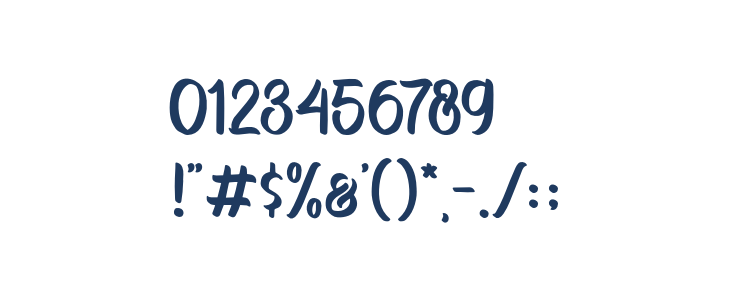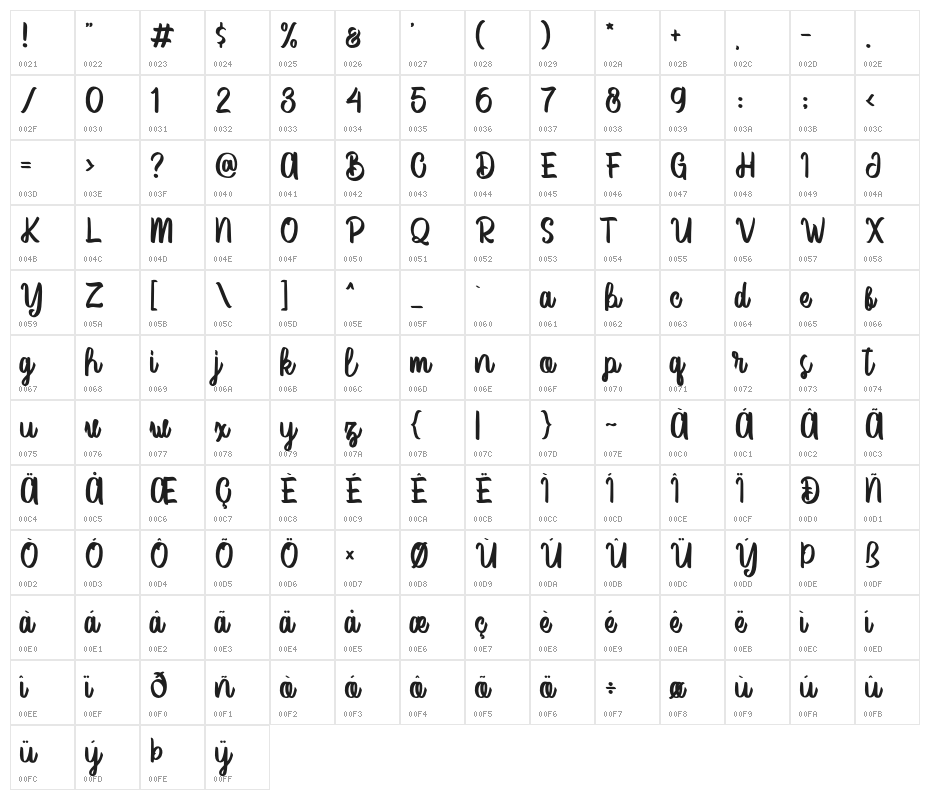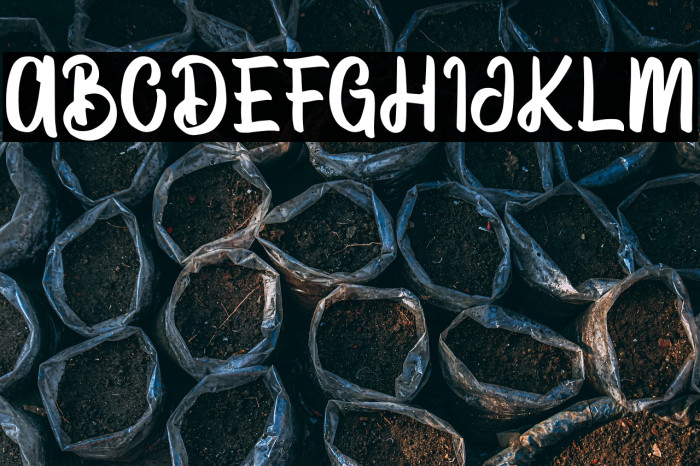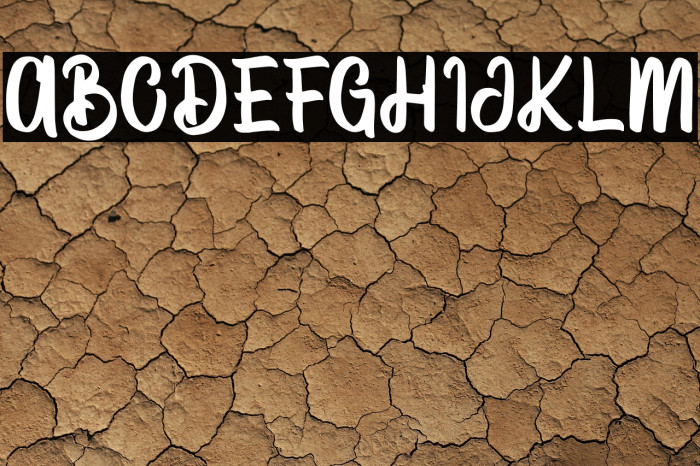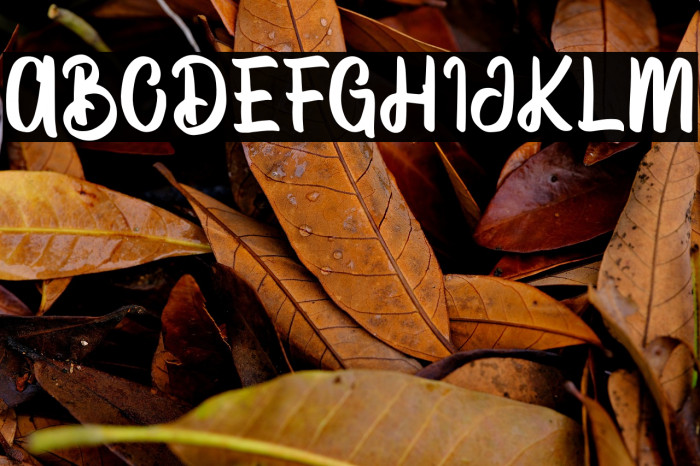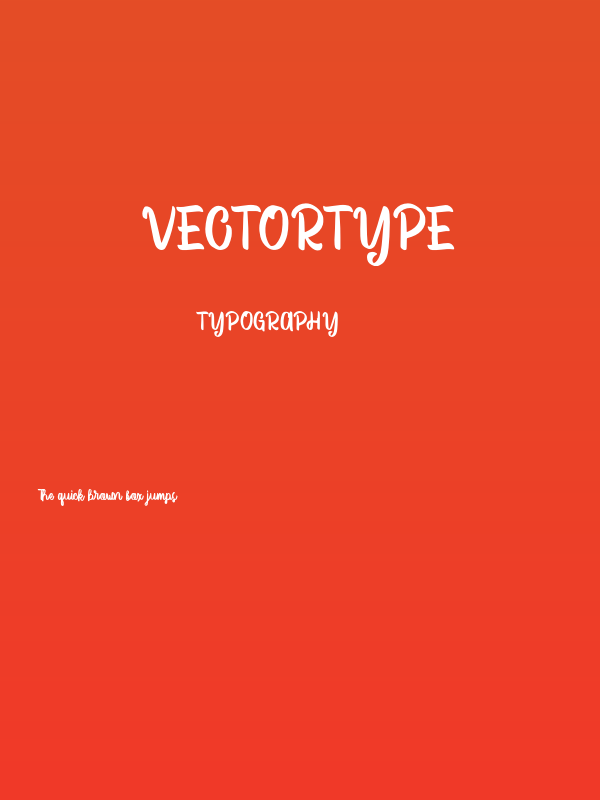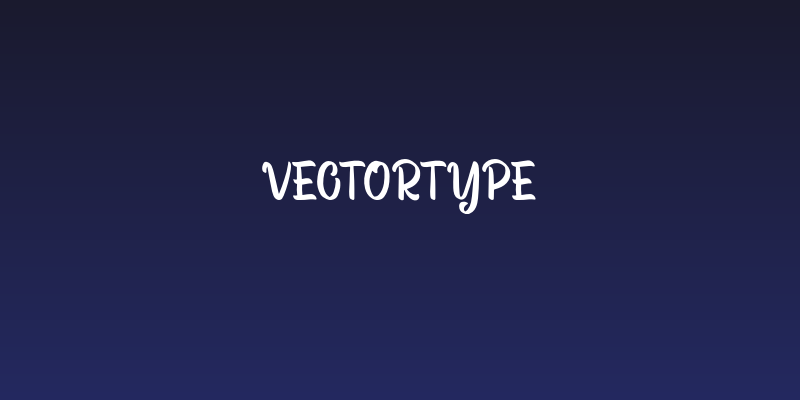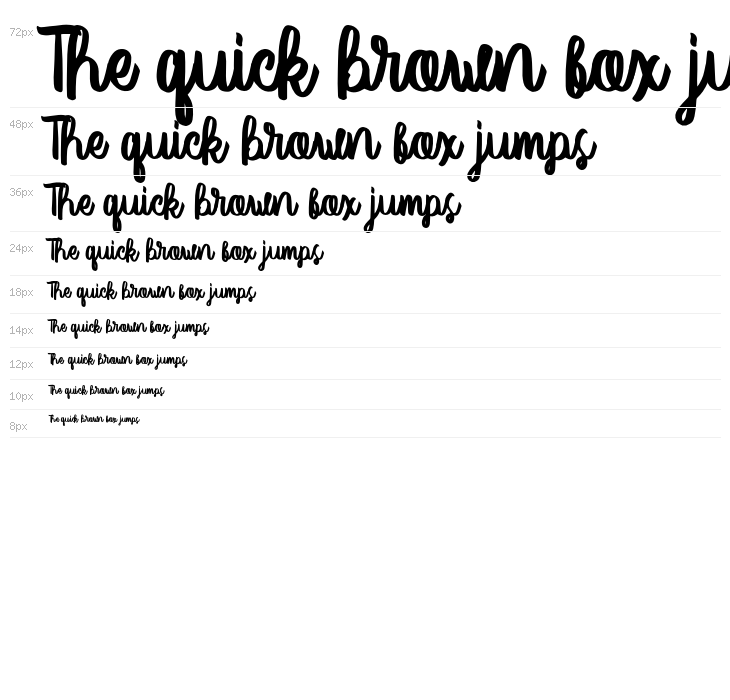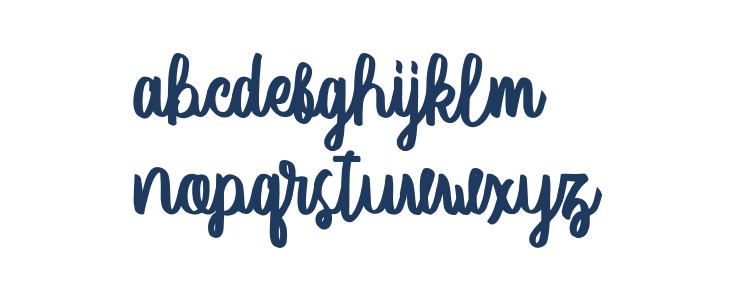
VectorType Font
VectorType Description
This font features a playful and bold script style with a hand-drawn appearance. The characters are rounded and connected, giving it a casual and friendly look. The uppercase letters are slightly larger and more pronounced, while the lowercase letters maintain a consistent flow. Numbers and special characters are designed to match the overall style, ensuring uniformity across all elements. The strokes are thick, providing a strong visual impact, and the overall design is cohesive and lively.
| Overall Style | Playful, Casual |
| Proposed Projects | Ideal for greeting cards, playful branding, children's books, and creative posters. |